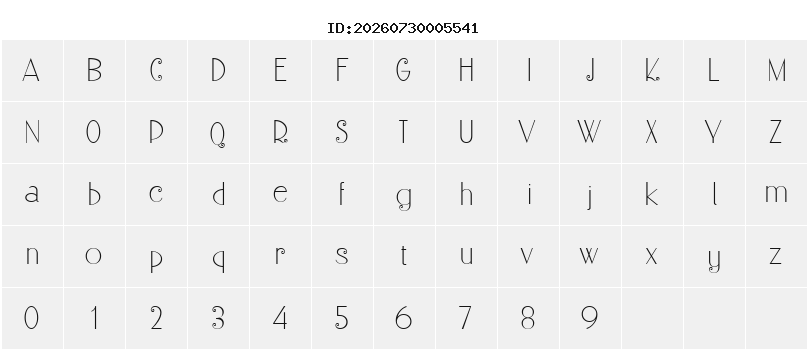
Kendra Preview
• Font Name: Kendra
• Font ID: Kendra
• Full Font Name: Kendra
• PostScript Name: Kendra
About Kendra.ttf
Kendra.ttf is a modern, elegant sans-serif font designed for ultimate readability and visual harmony. Perfect for branding, headlines, web design, and print materials.